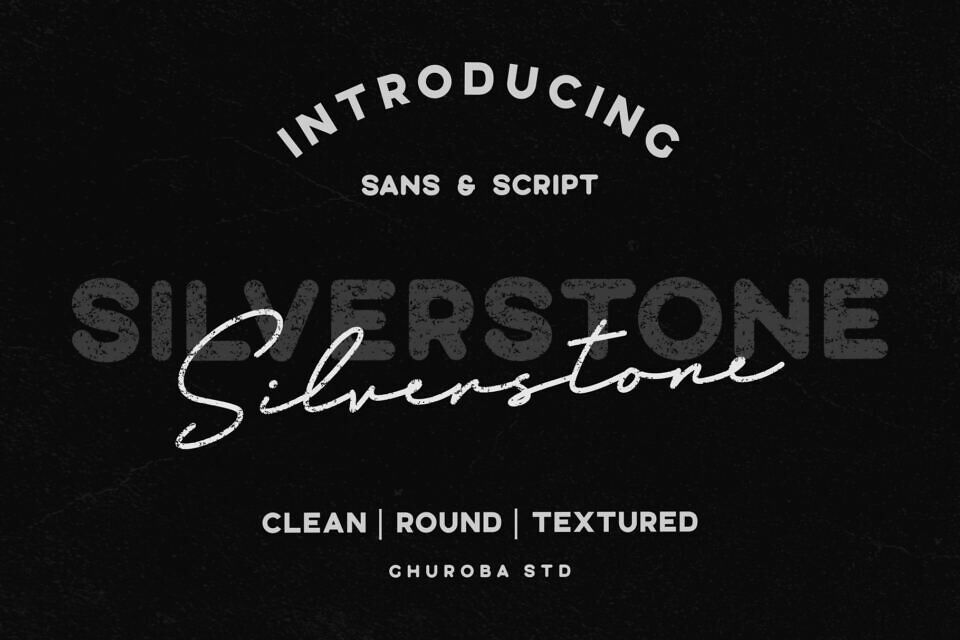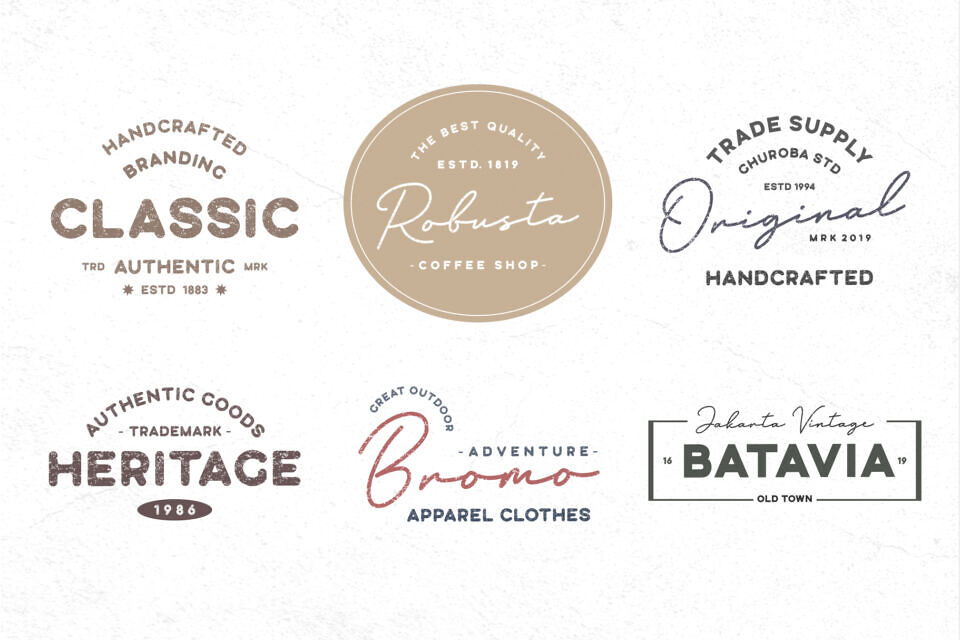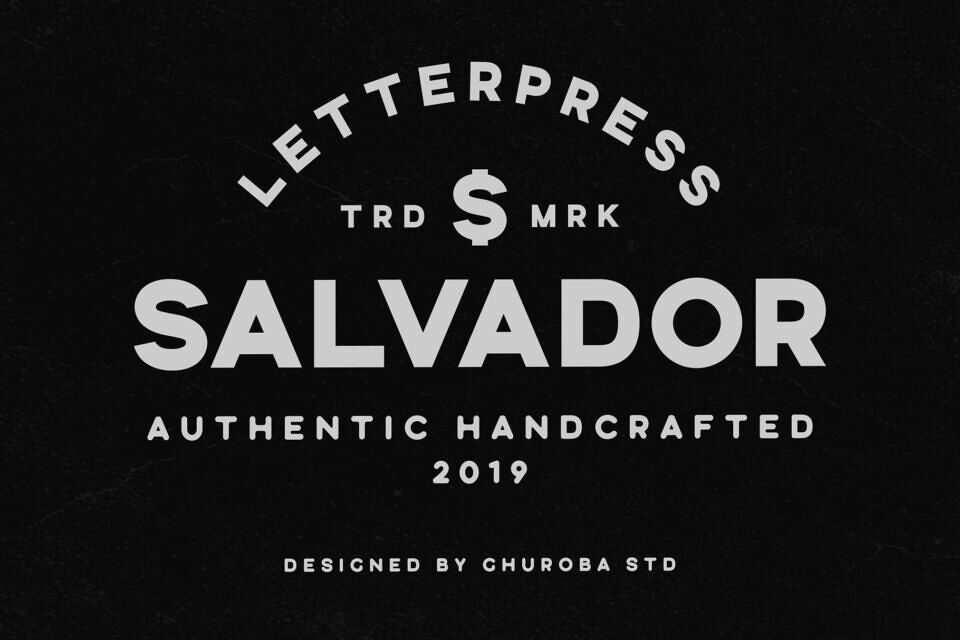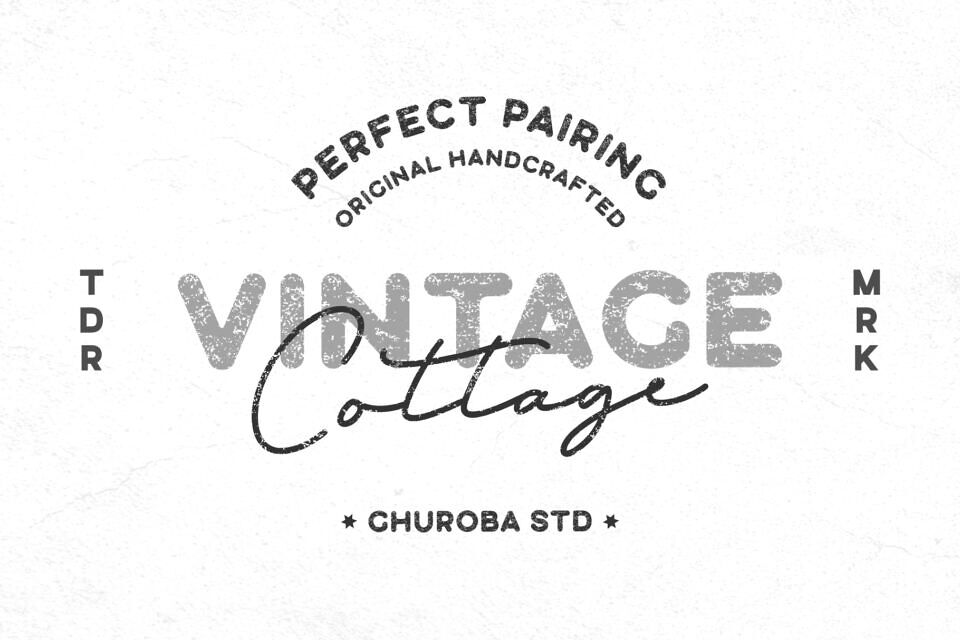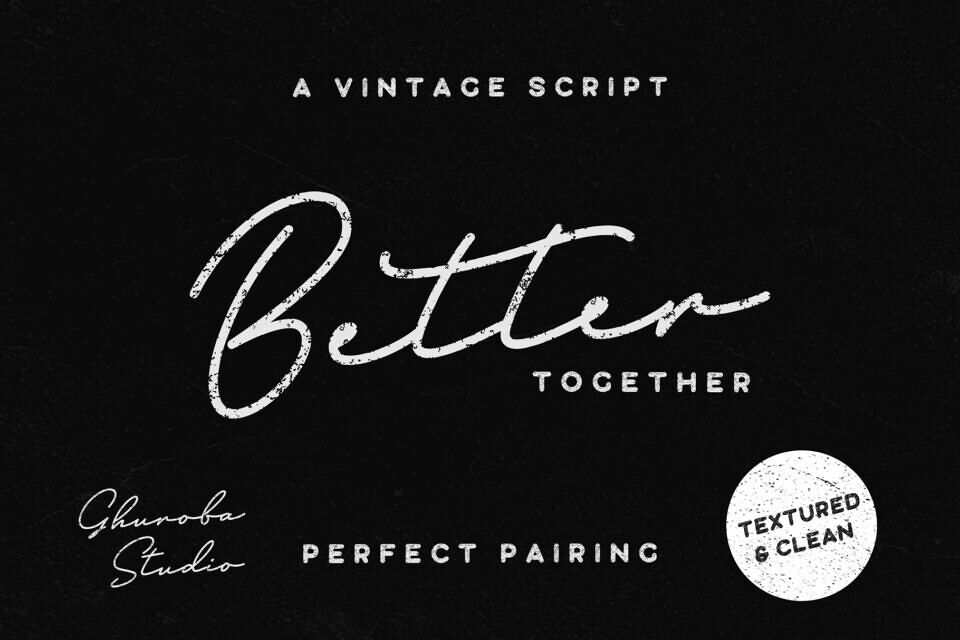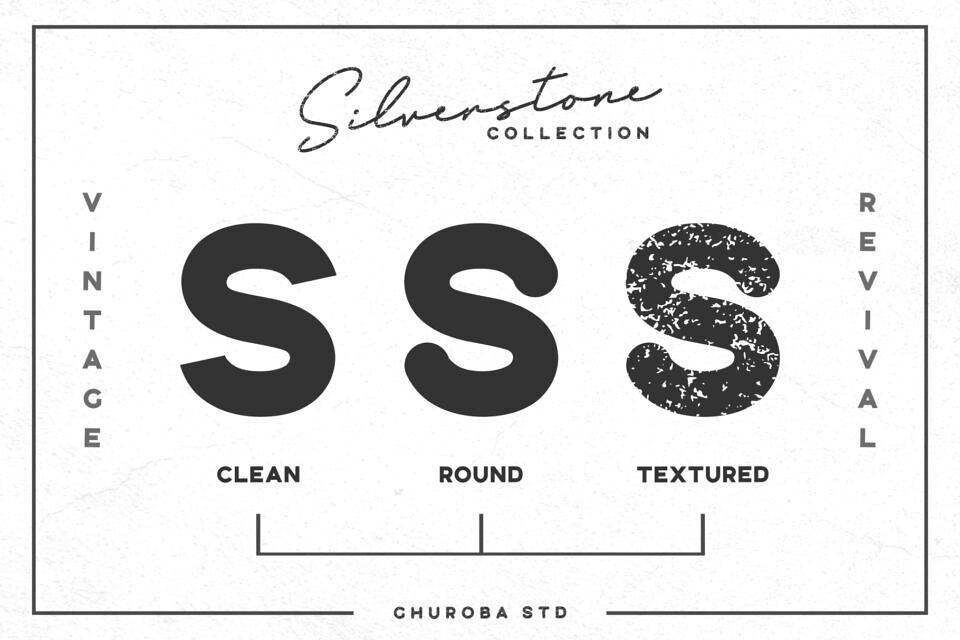
Silverstone Font Family
Silverstone, designed by Ghuroba Studio, is a lovely decorative font family that combines elegant script and sans-serif styles. Featuring a modern appeal, the collection includes versatile variations such as Silverstone Sans Round, Silverstone Sans Textured, and Silverstone Script Textured.
This diverse family offers a contemporary aesthetic, making it an excellent choice for creators seeking unique textures and professional flair for their projects.
Designed by: Ghuroba Studio